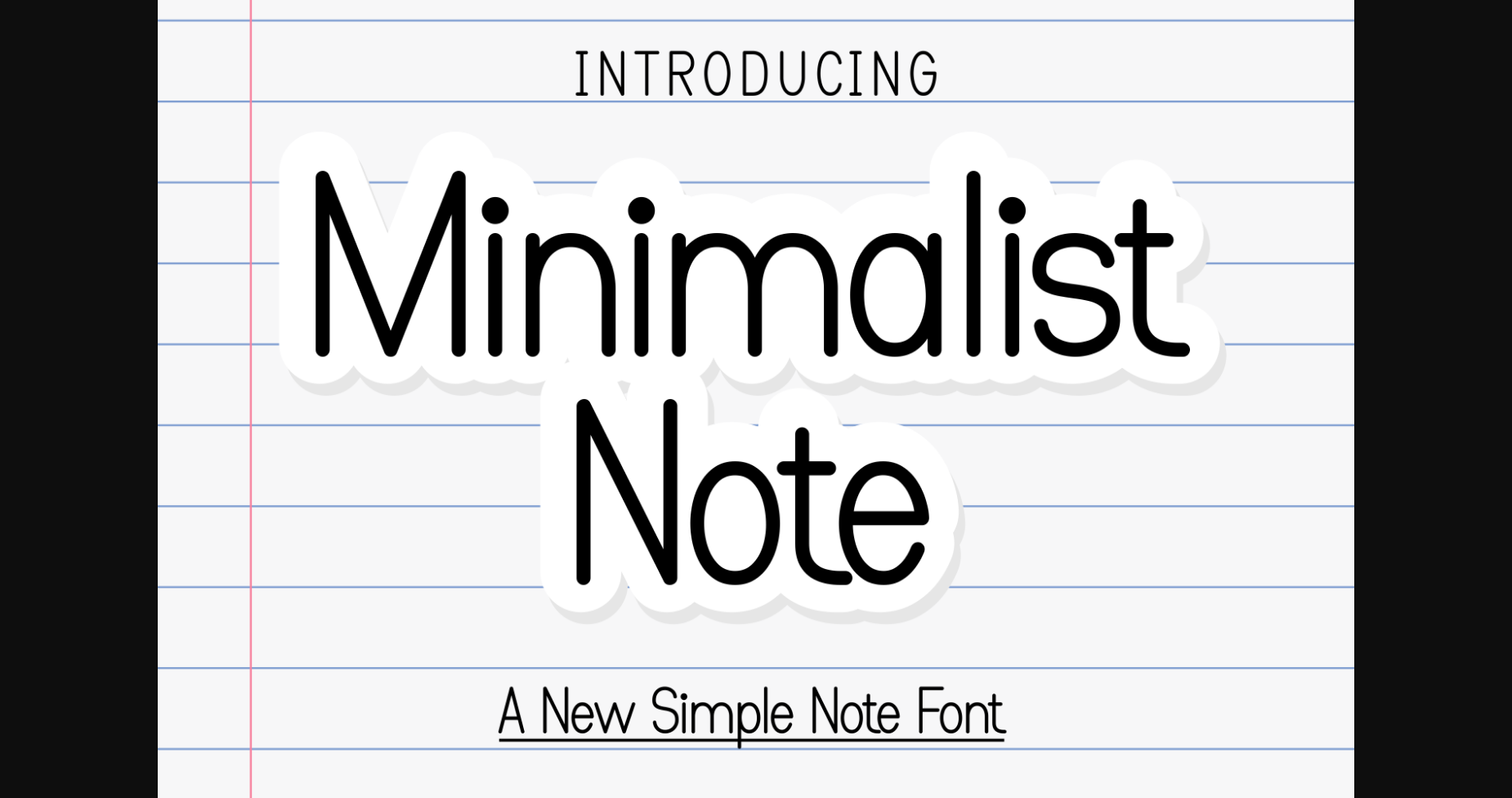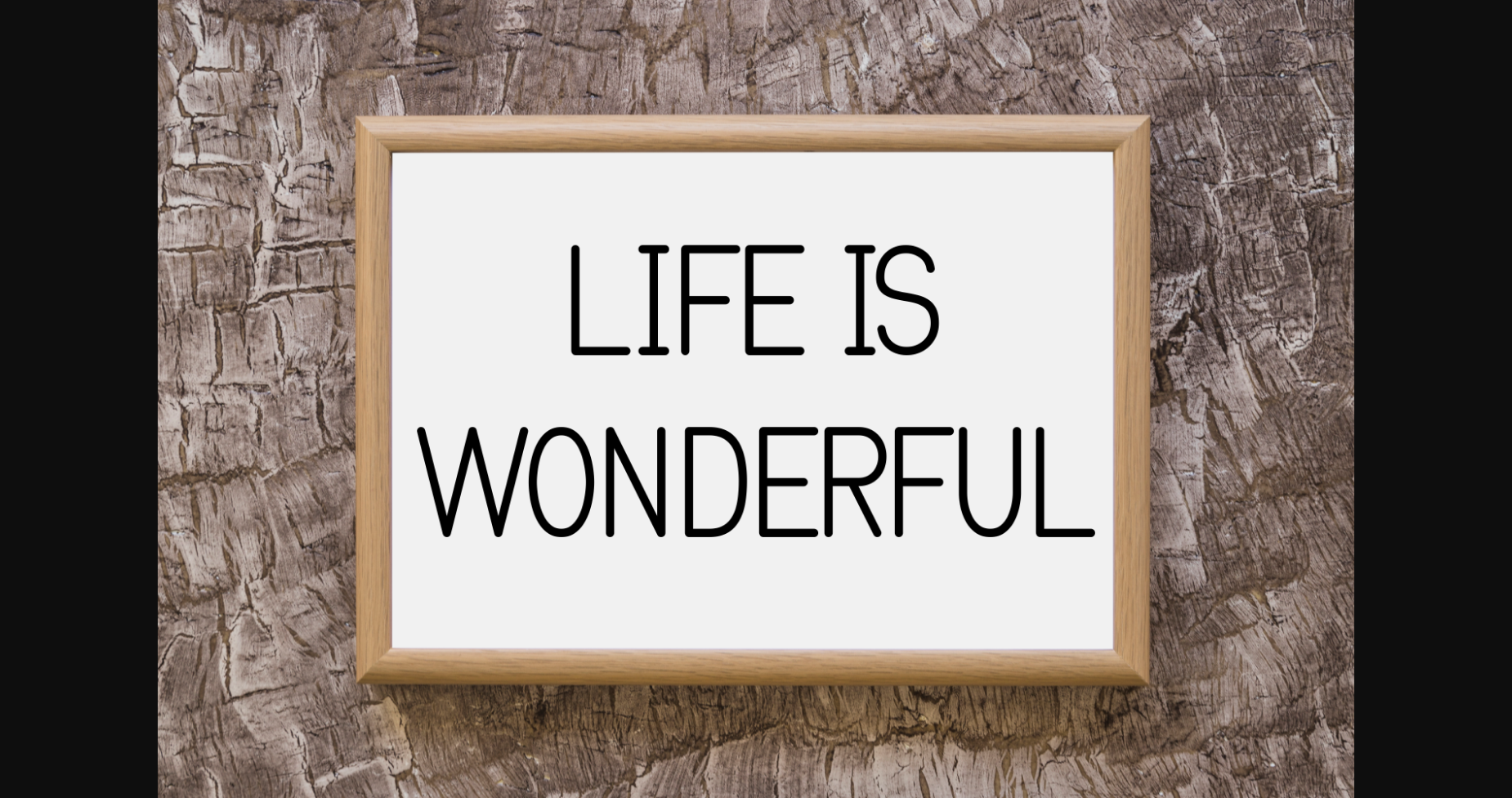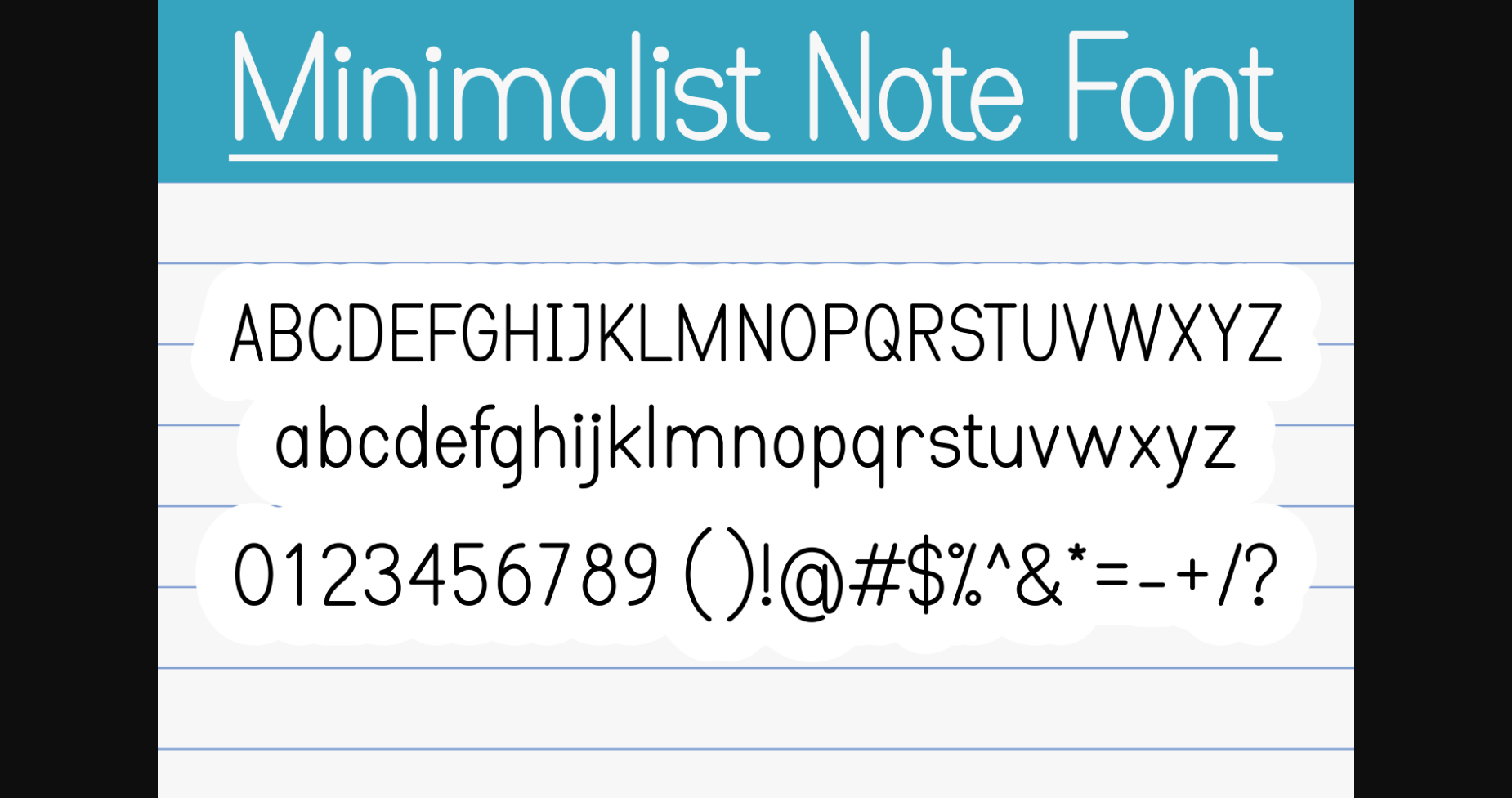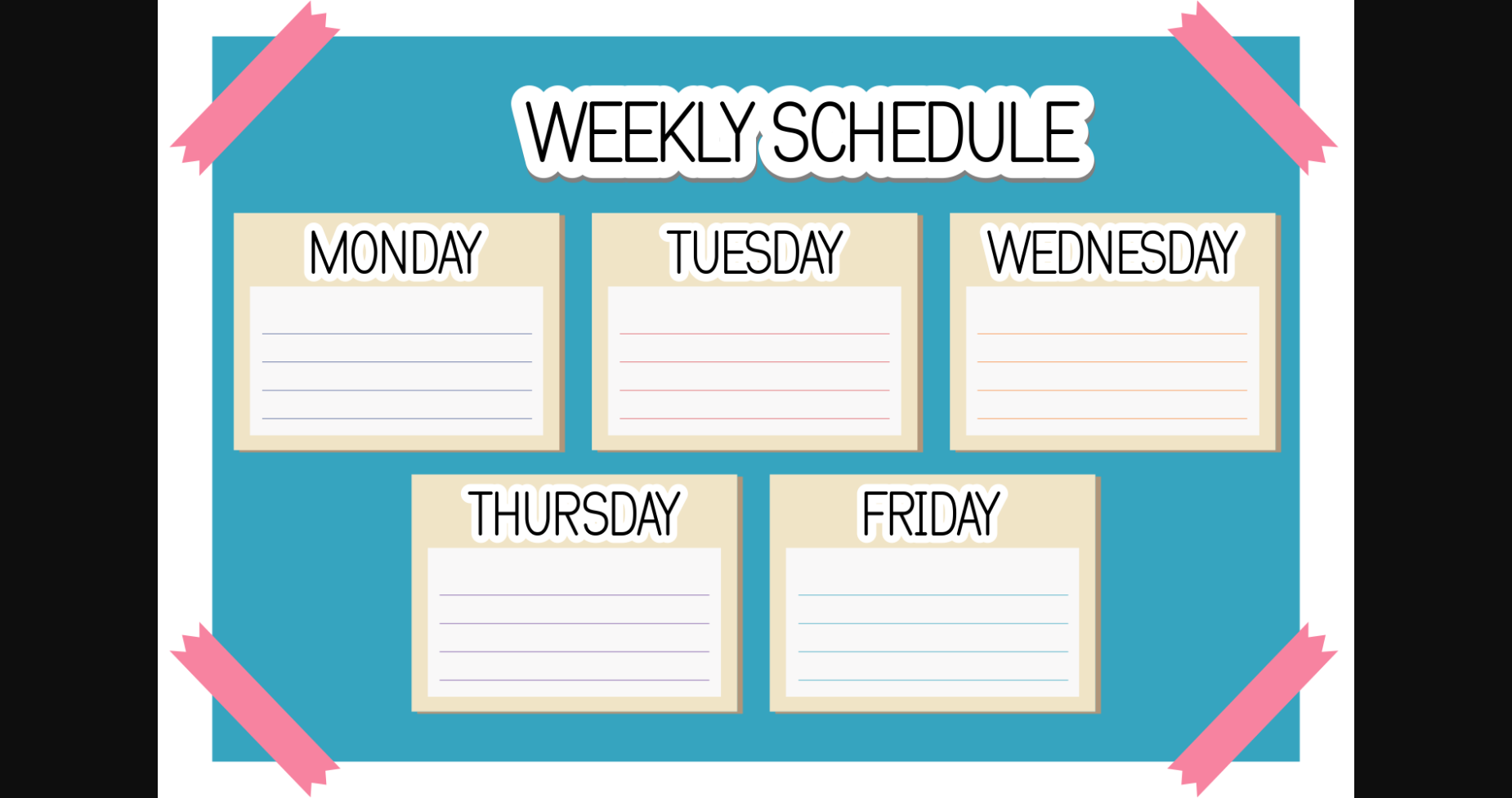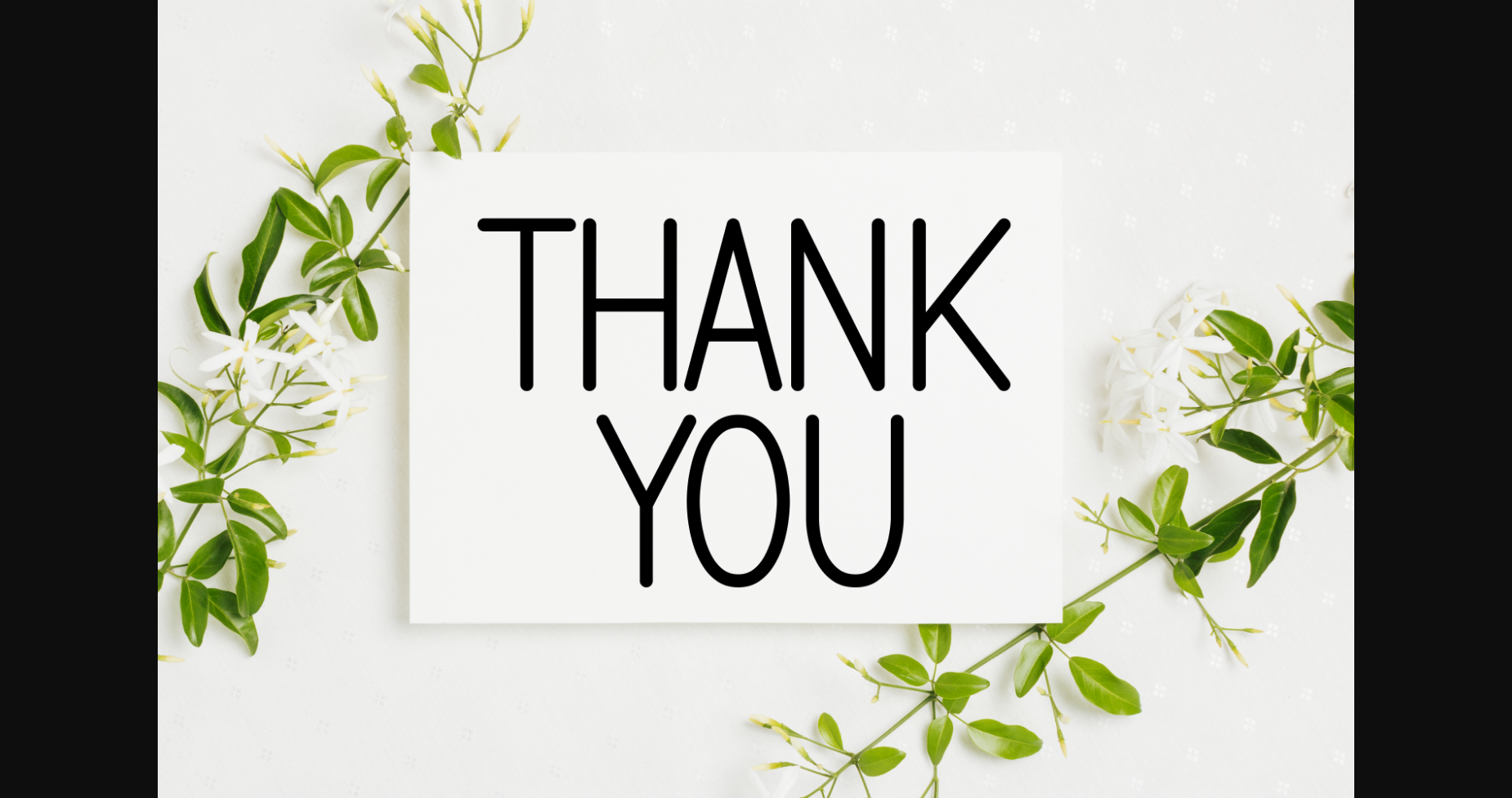
About Minimalist Note Font
Minimalist Note is a minimal, yet elegant sans serif font. Suitable to a wide variety of designs due to its neat and simple style, this font has the potential to become your favorite go-to font, no matter the occasion!